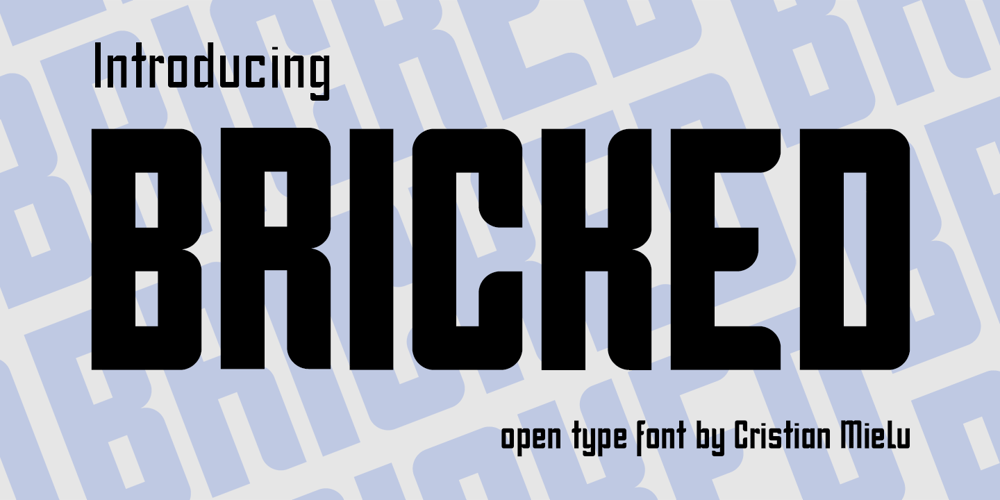
Bricked
Bricked font
Bricked Font Family was designed by Cristian Mielu and published by Cristian Mielu. Bricked contains 6 styles and family package options. Bricked is a font family, containing 3 weights: Bolt, Regular and Light, plus their Italic versions, results in a total of 6 styles, 375 glyphs each one of them. The shapes of Bricked font, are borowed from the straight lines of the bricks, as the name says. Bricked is created to suit perfectly as a logo font for a construction company, ingineering company, auto garage, and many other activities with a relative profile, but not only, Bricked can be versatile and can be a perfect choice for other type of businesses to. Bricked supports a wide variety of Latin from Latin0 to Latin10, Windows Latin and Macintosh Latin.